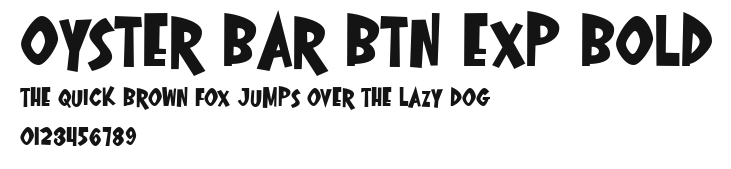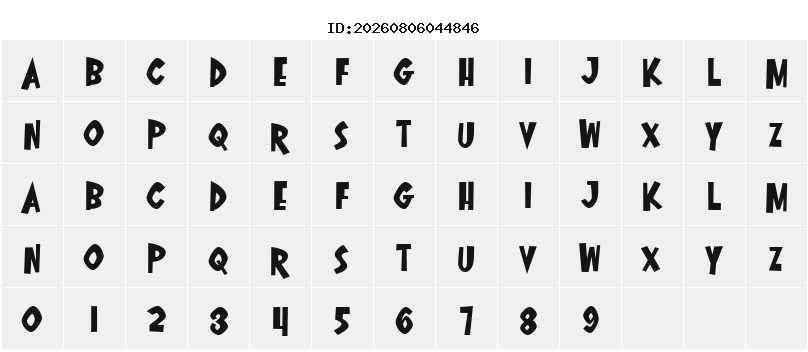
• Font Name: Oyster Bar BTN Exp Bold
• Full Font Name: Oyster Bar BTN Exp Bold
About Oyster Bar BTN Exp Bold.ttf
Oyster Bar BTN Exp Bold.ttf is a modern, elegant sans-serif font designed for ultimate readability and visual harmony. Perfect for branding, headlines, web design, and print materials.